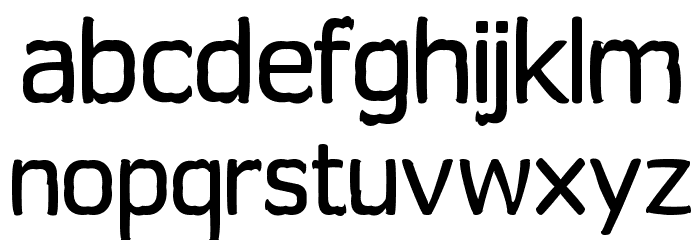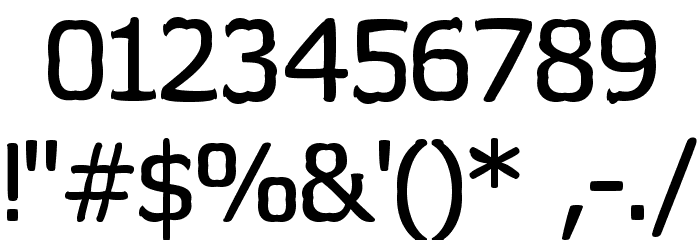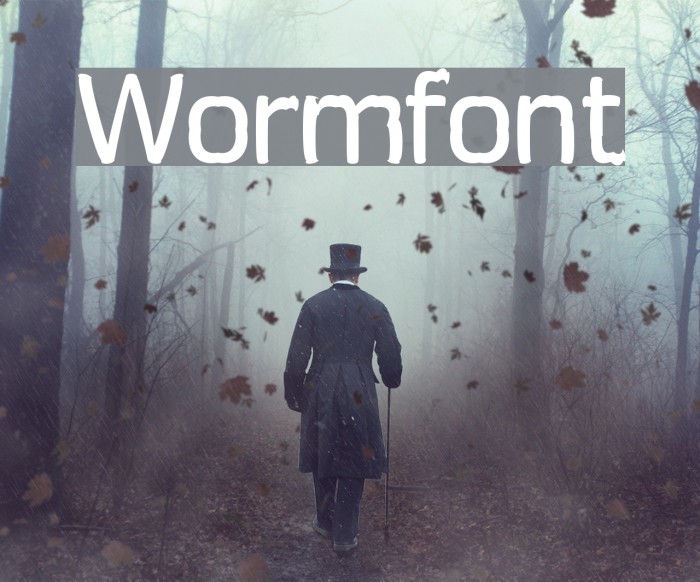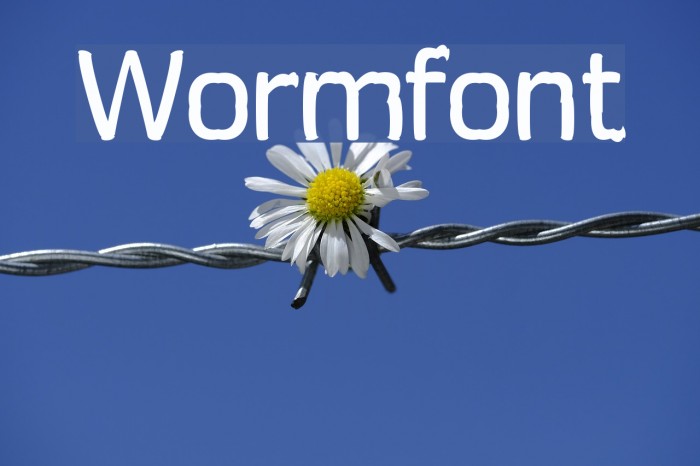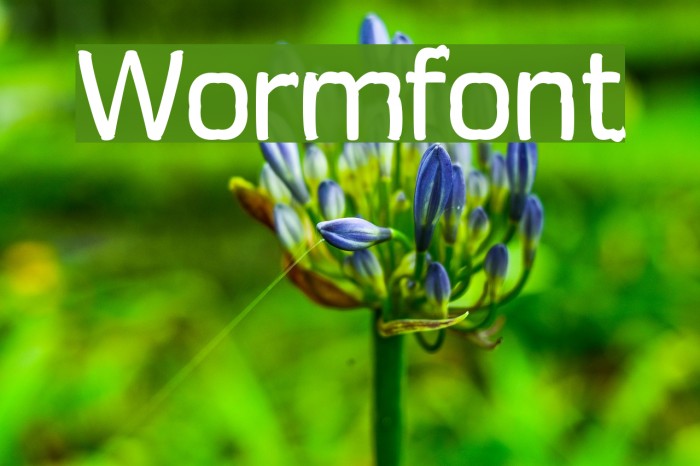
Wormfont Font
This font features a playful and organic design, characterized by its slightly irregular and wavy strokes that give it a hand-drawn appearance. The letters have a consistent weight, with rounded edges and a casual feel. The uppercase and lowercase letters maintain a uniform height, contributing to a cohesive look. The numerals and special characters are designed to match the overall style, ensuring versatility across different uses. Its unique style makes it stand out, while still maintaining readability.
A playful, hand-drawn font with wavy strokes and rounded edges.
- Proposed Projects: Ideal for children's books, creative posters, casual branding, and playful packaging designs.
- Overall Style: Playful, Hand-drawn